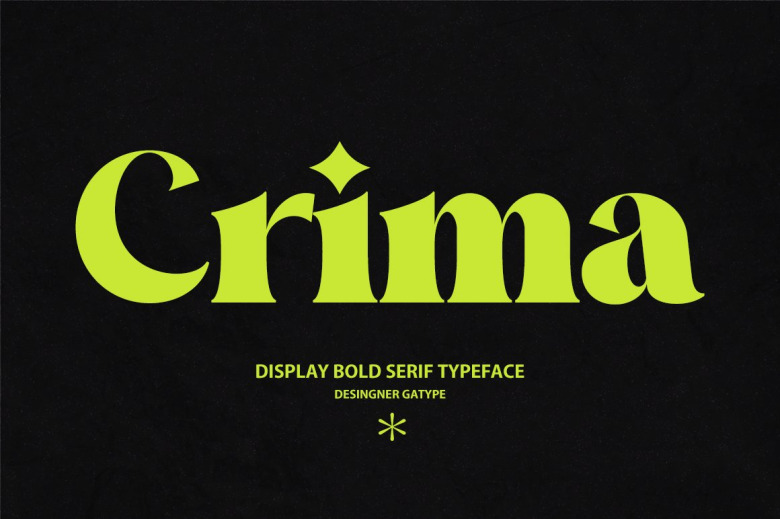
Crima Font
Crima is an elegant and neat font, perfect for branding and modern and trendy names. This classy and modern serif with subtle distinctions can be used in logos and branding for various sectors. From apparel and bridal websites to headlines, feminine nails, and anything in between. Leave it clean or portray a dressier feel with many intricately-designed discernments for the uppercase and lowercase characters.
Crima Bold Serif Font